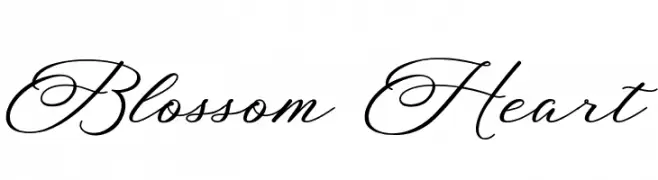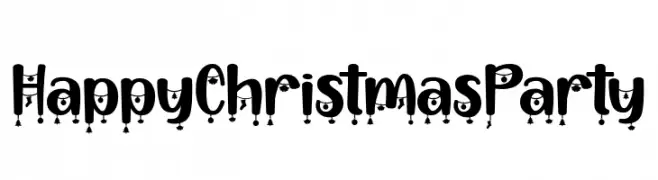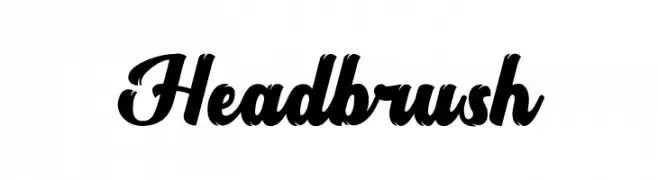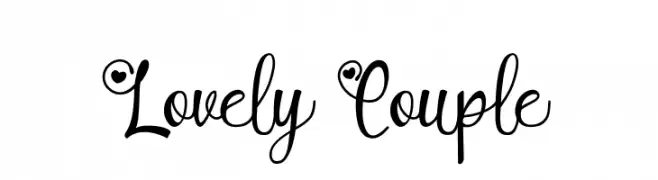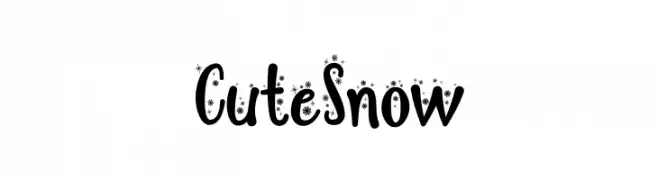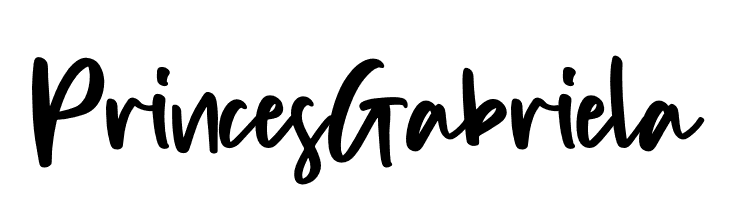
An elegant script font with flowing, cursive style and intricate swashes.
An elegant script font with intricate swashes and flowing, interconnected letters.
A playful, festive font with Christmas-themed decorations on each character.
A bold, brush script font with a dynamic, handwritten style.
A whimsical, decorative font with playful loops and curls.
An elegant script font with high contrast and decorative swashes.
A graceful script font with elegant loops and swirls, perfect for romantic designs.
A bold, rounded font with a playful and modern style.
An elegant script font with flowing, ornate cursive letters and intricate flourishes.
A playful, snowflake-adorned font perfect for festive and cheerful designs.